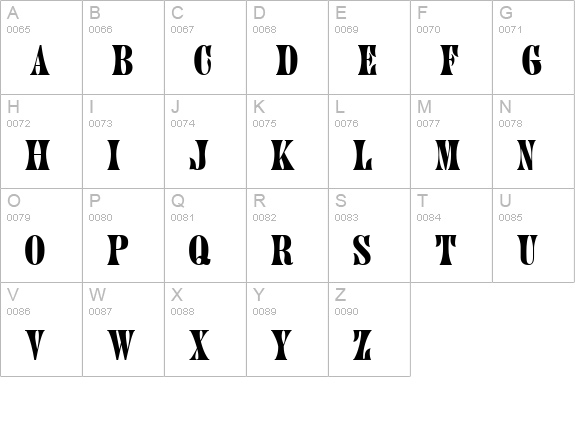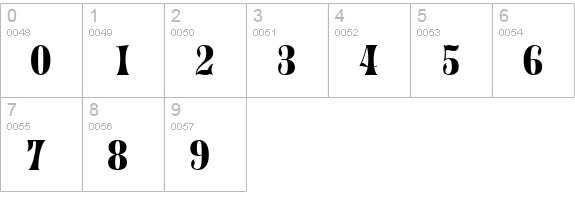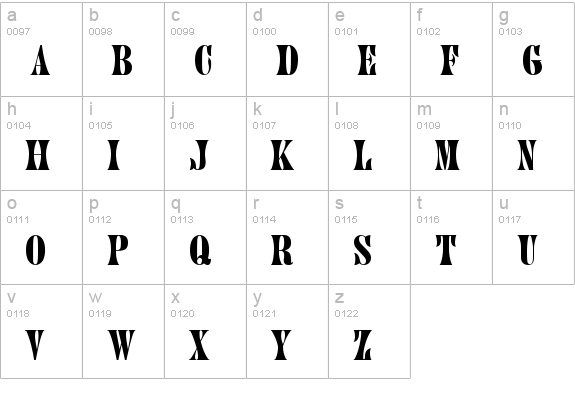
QTJupiter Regular Font Details
QTJupiter Regular is the standard, neutral variant in the QTJupiter typeface family \xE2\x80\x94 well suited to general body text, paragraphs, and standard typographic work.
QTJupiter Regular font is a modern and stylish typeface that will elevate your designs to new heights. With its sleek lines and elegant curves, this font captures attention and commands a presence on any creative project. Whether you're designing a logo, creating a website, or crafting eye-catching posters, QTJupiter Regular is the perfect choice to make your content stand out. This font exudes a sense of sophistication and professionalism, making it suitable for a wide range of applications. Its versatility allows it to seamlessly blend into both formal and casual designs, making it an excellent choice for both business and personal projects. From corporate branding to wedding invitations, QTJupiter Regular font will add a touch of class and refinement to your designs. One of the best features of QTJupiter Regular is that it is completely free. Yes, you read that right! This font is freely available to download at FontsMarket.com. You can access this font without breaking the bank, allowing you to enhance your designs without any financial constraints. This makes QTJupiter Regular font a cost-effective solution for designers, students, and anyone looking to add a touch of elegance to their creations. Furthermore, the ease of downloading and installing this font from FontsMarket.com ensures a seamless experience for users. With just a few clicks, you can have QTJupiter Regular font at your fingertips, ready to use in your next project. The convenience and accessibility make it an ideal choice for designers of all skill levels. So, why settle for ordinary when you can elevate your designs with QTJupiter Regular font? Its free availability, stunning aesthetics, and ease of use make it a must-have for any design enthusiast. Download QTJupiter Regular font today from FontsMarket.com and unlock the potential to create visually captivating designs that leave a lasting impression.